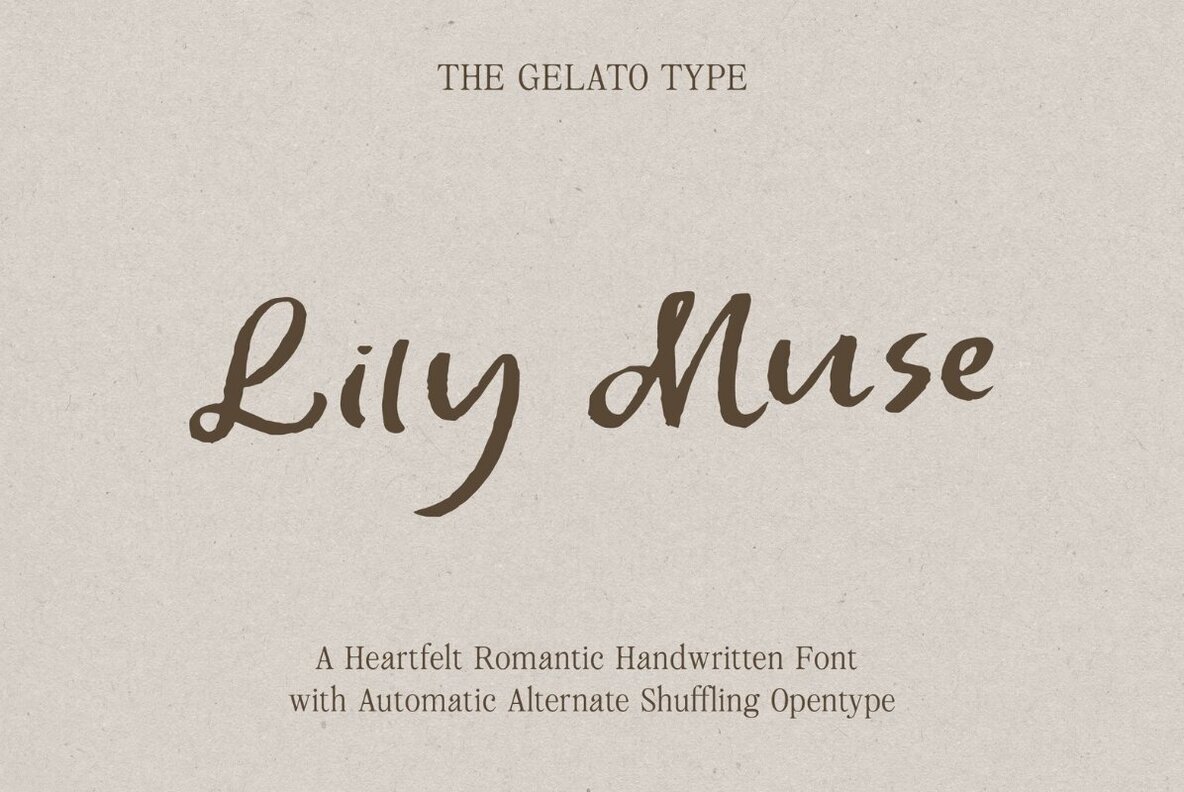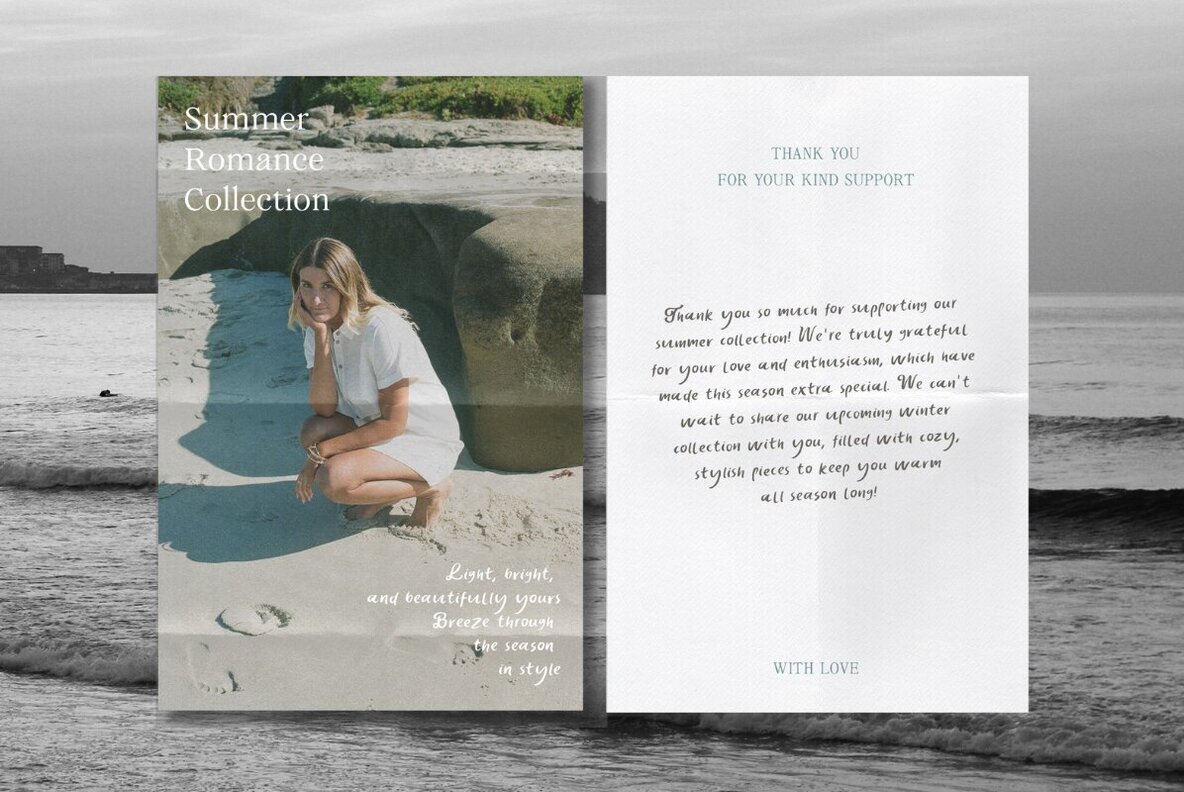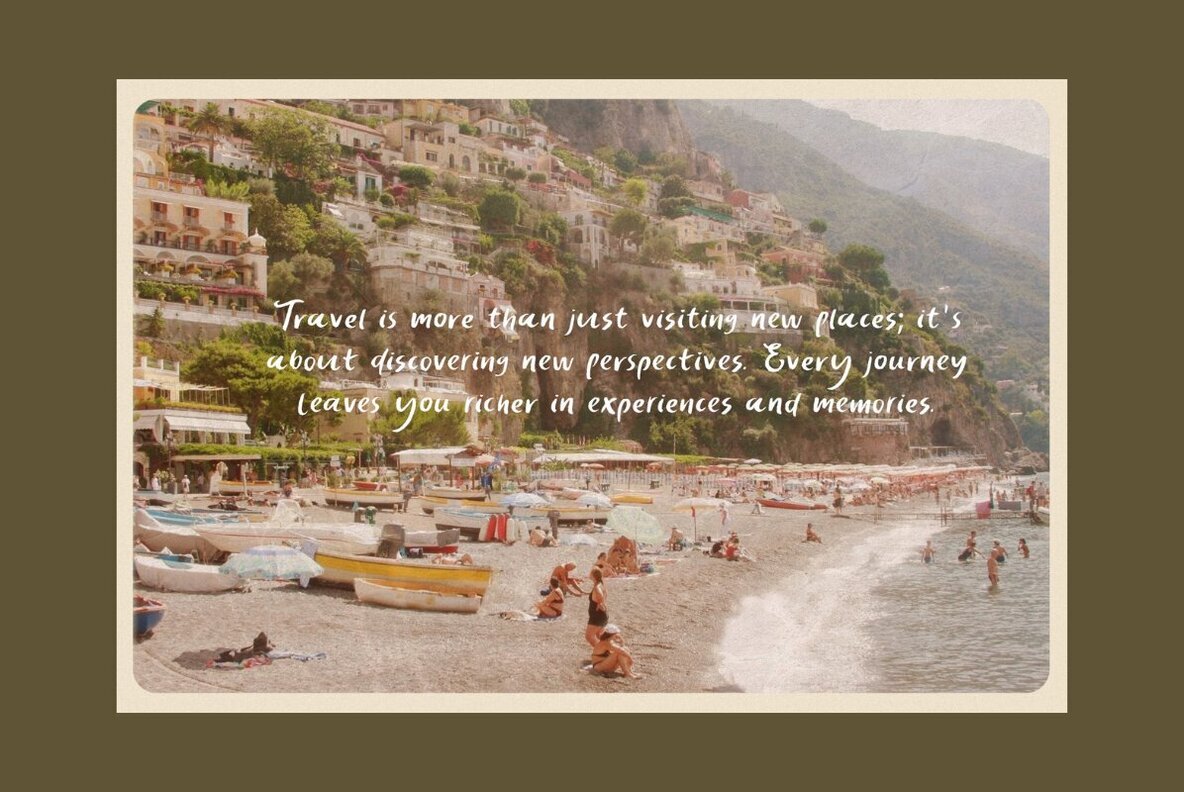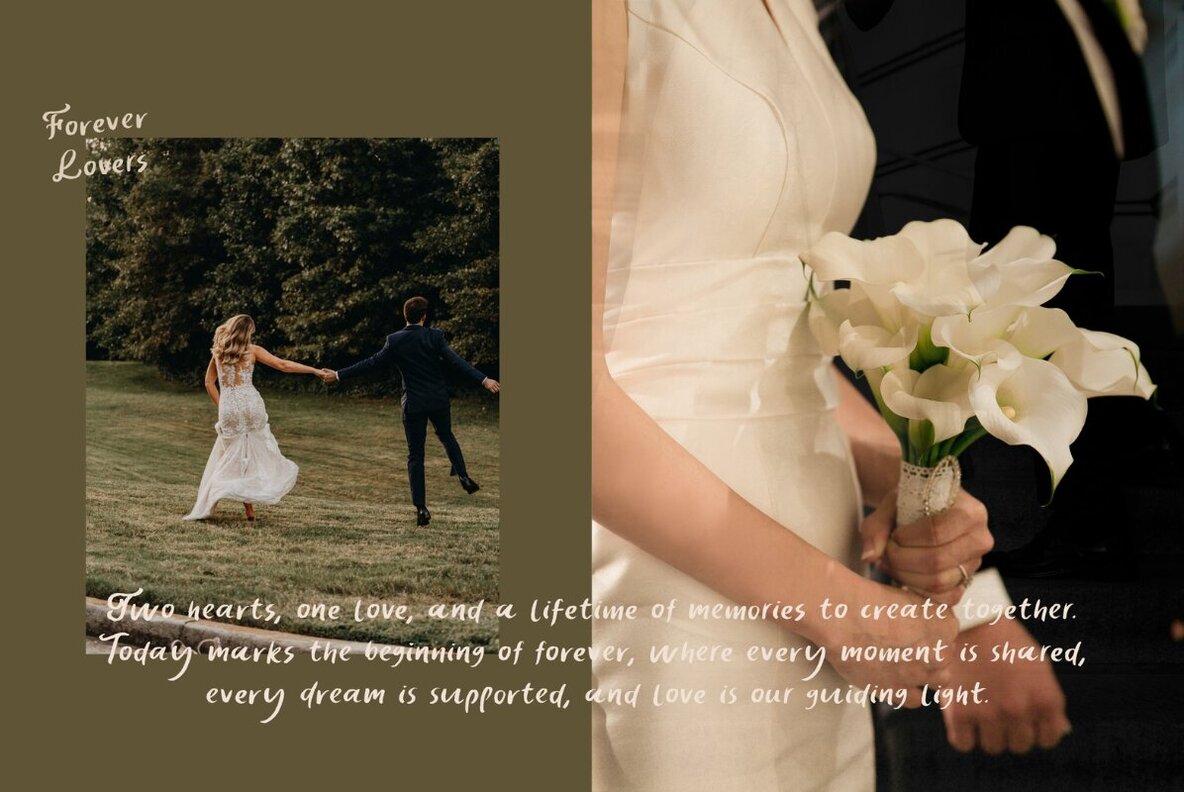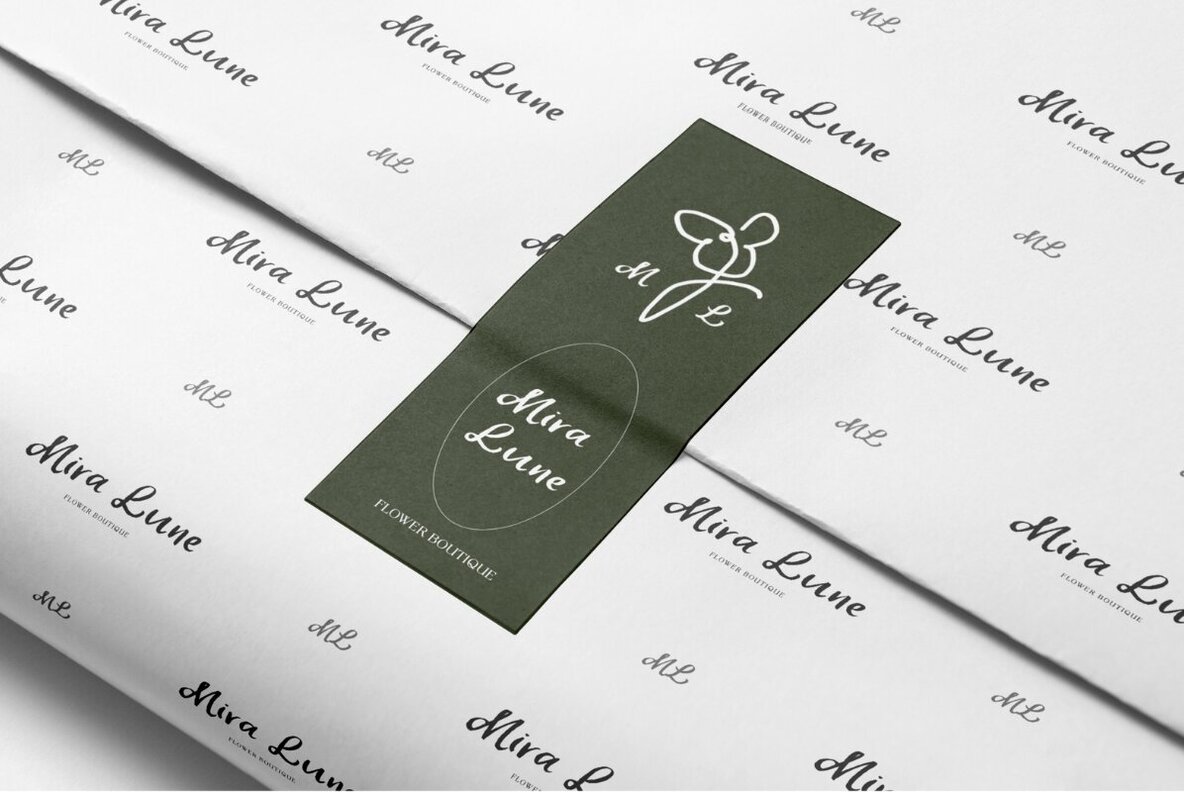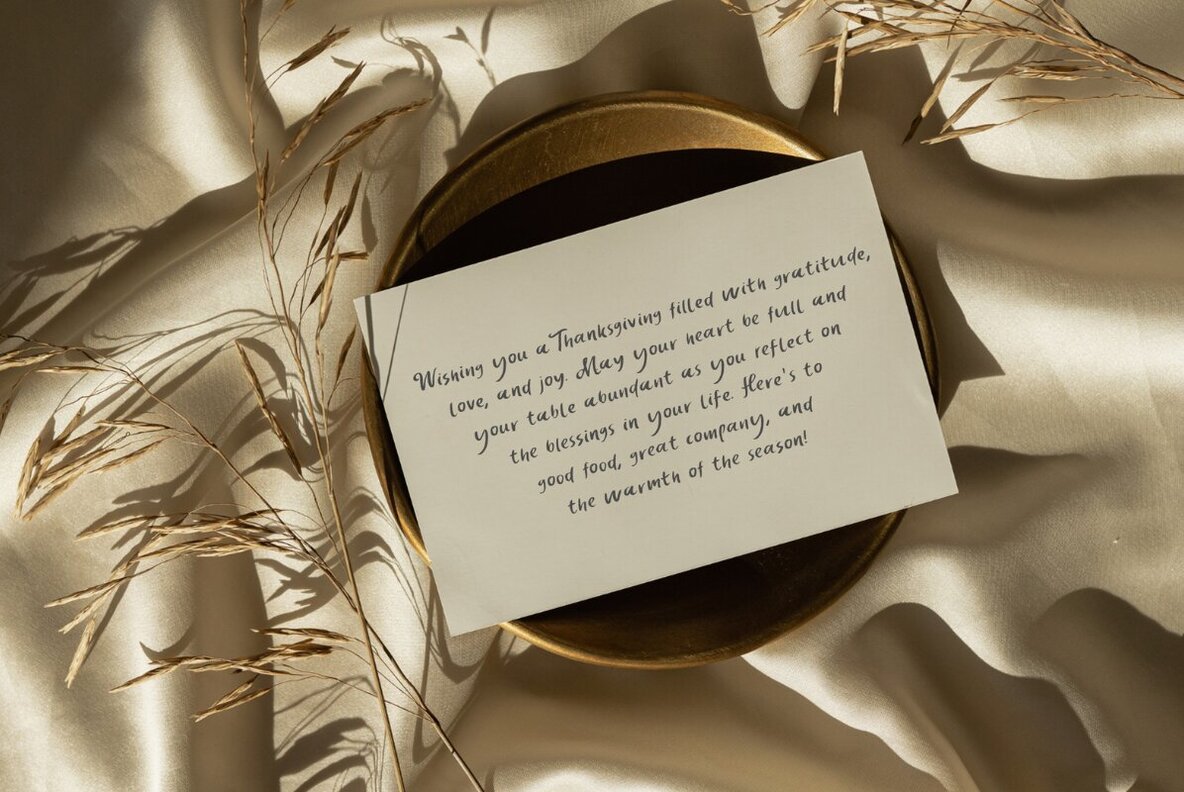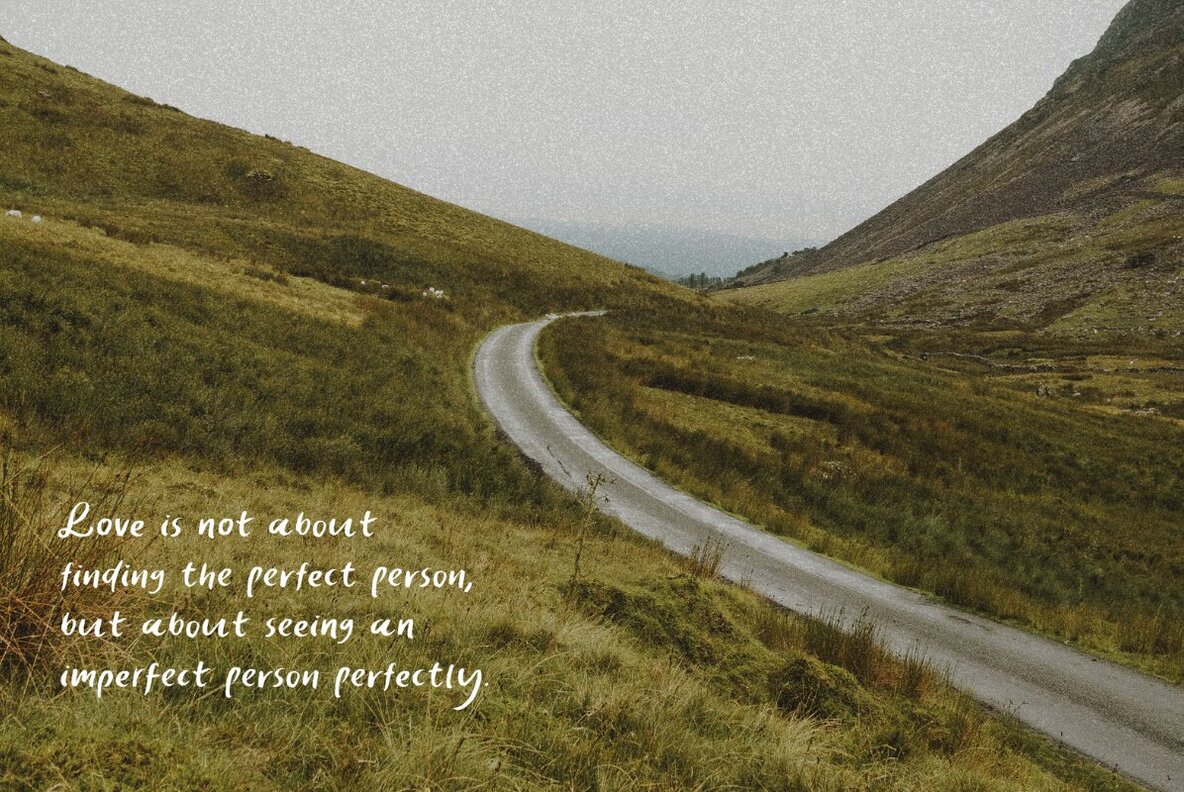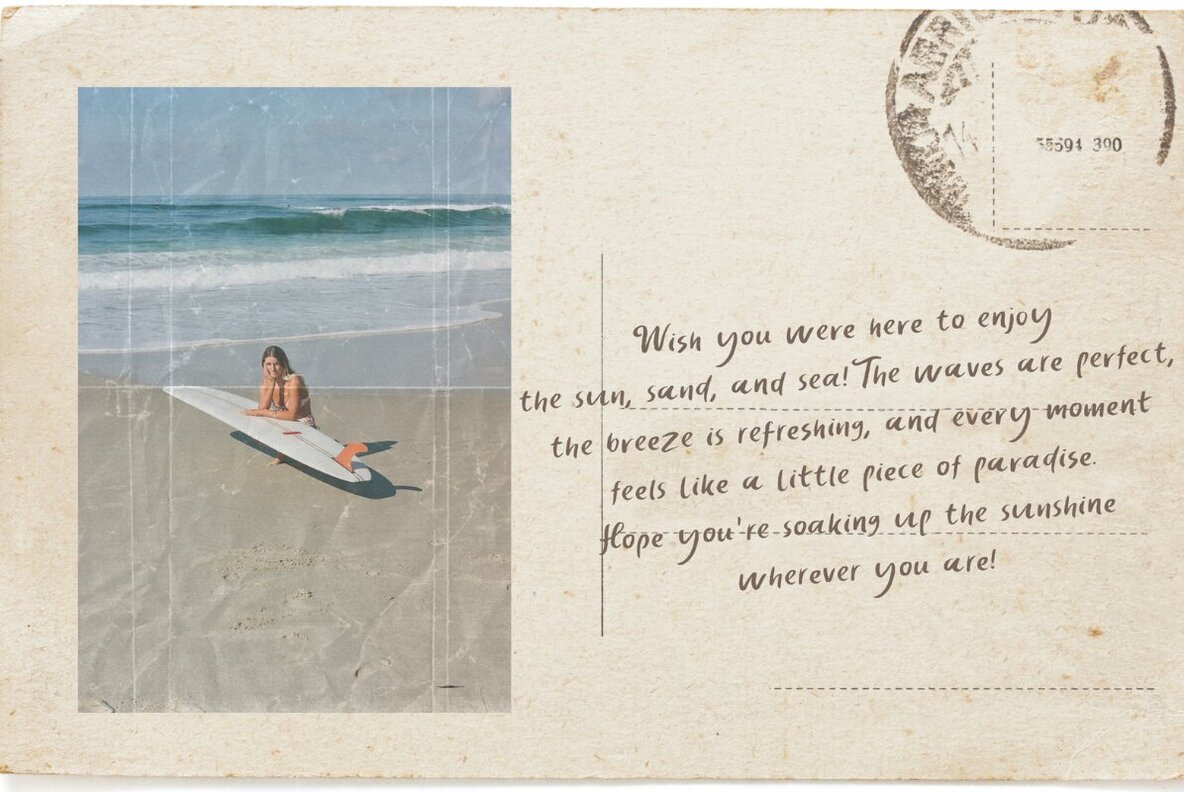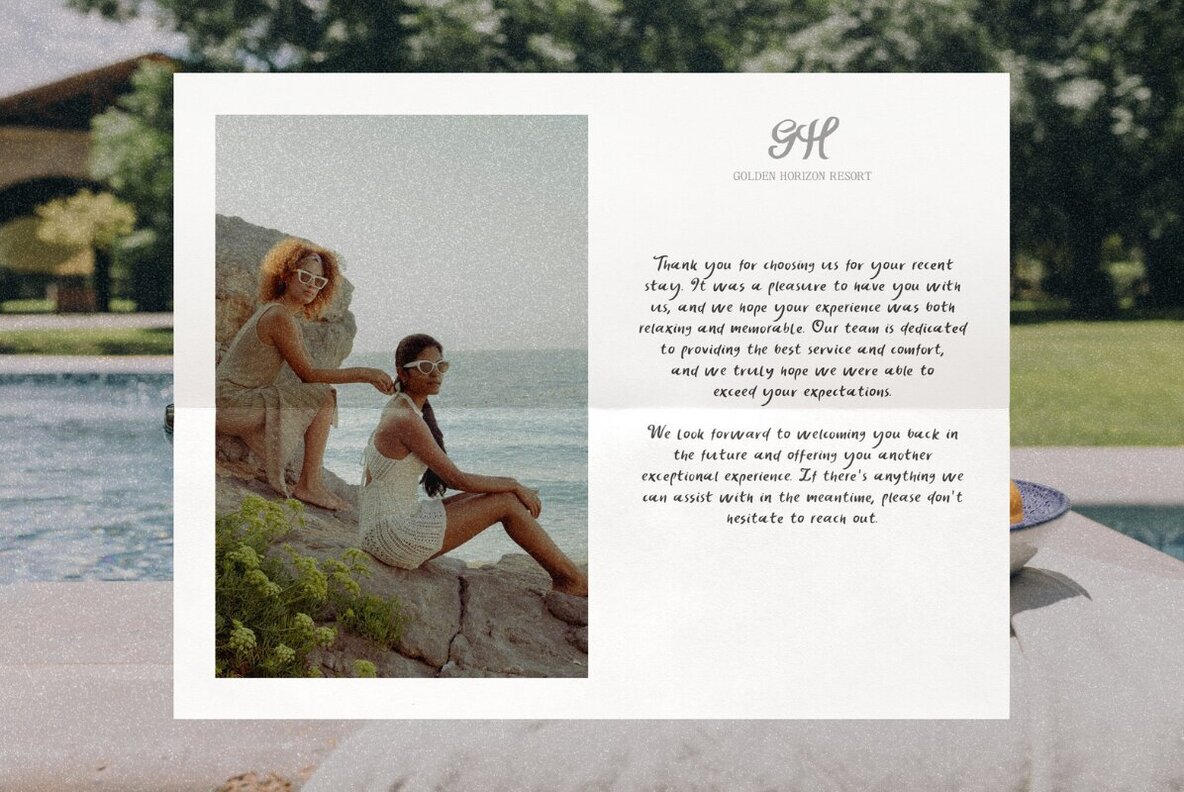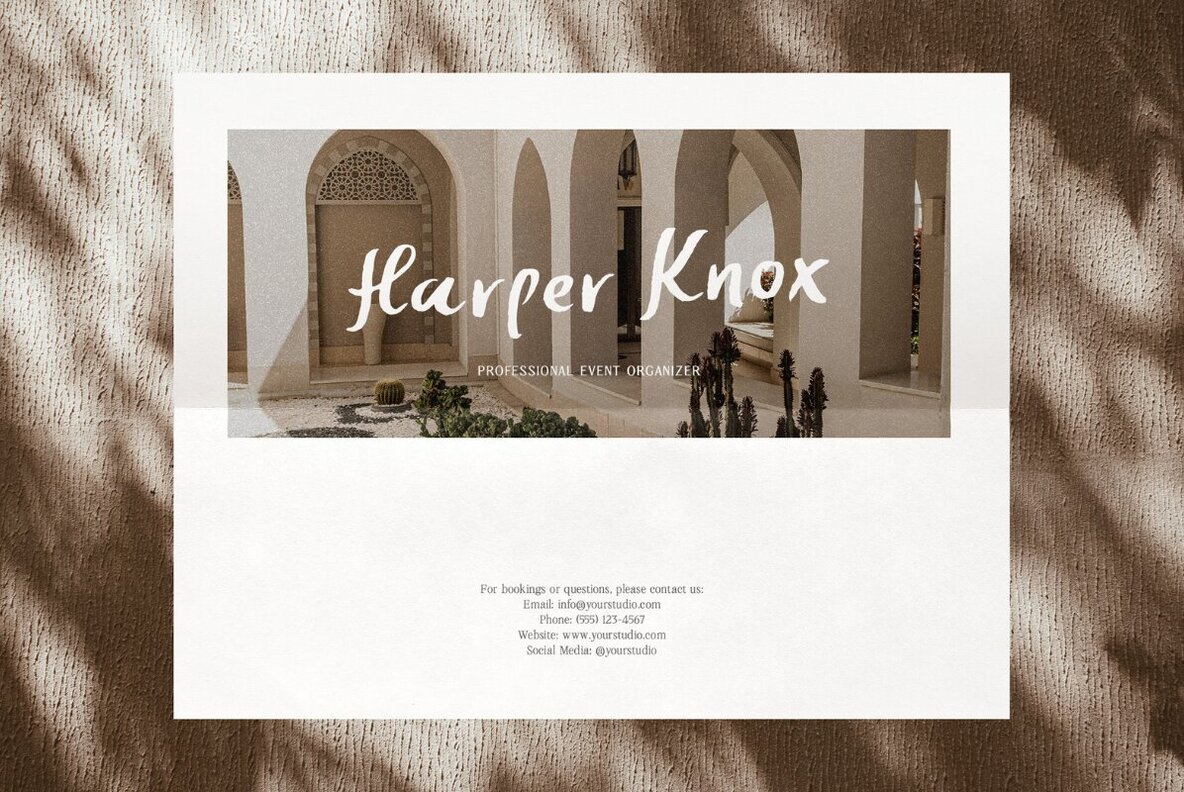
Lily Muse Font
Lily Muse Regular
Immerse your projects in romance and elegance with Lily Muse, a handwritten font that embodies the essence of timeless love. Ideal for wedding invitations, personal notes, branding, or any design that demands a touch of heartfelt grace, Lily Muse captivates with its artistic strokes. Let your designs blossom with the enchantment of Lily Muse, adding elegance and emotion to every project. Perfect for designers and creatives who wish their words to mirror the beauty of the feelings they express.Lily Muse - The Romantic Handwritten Font